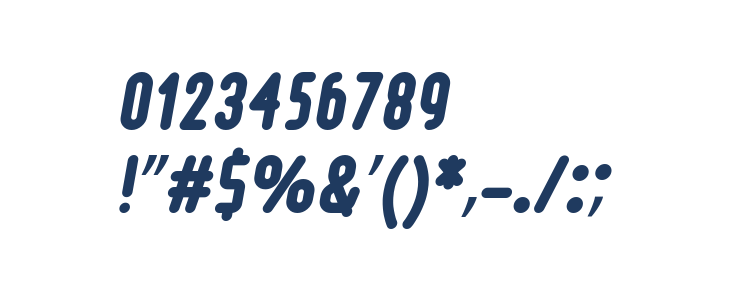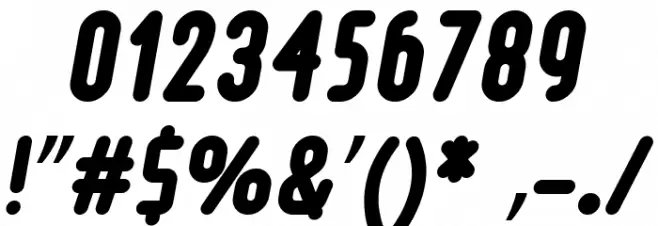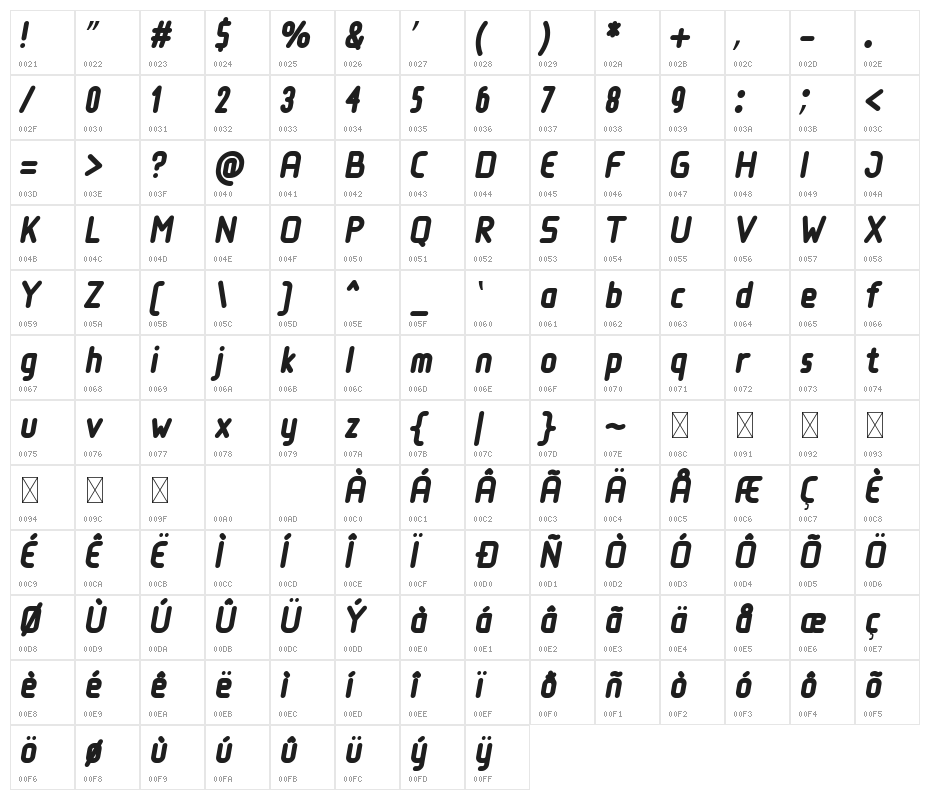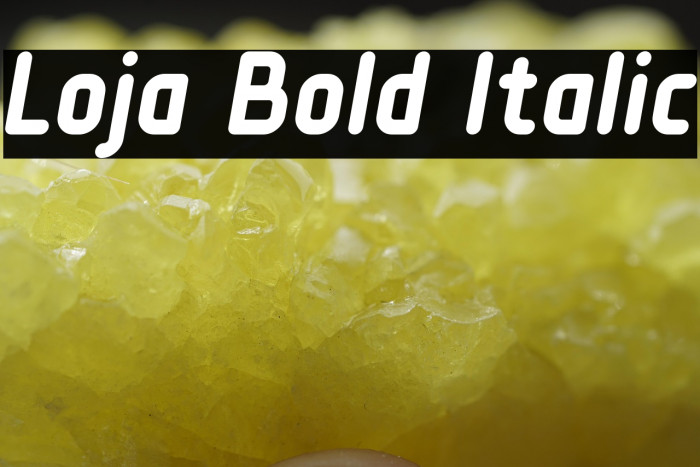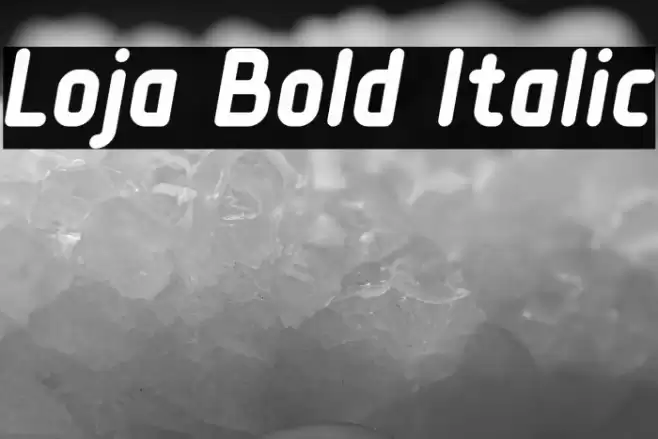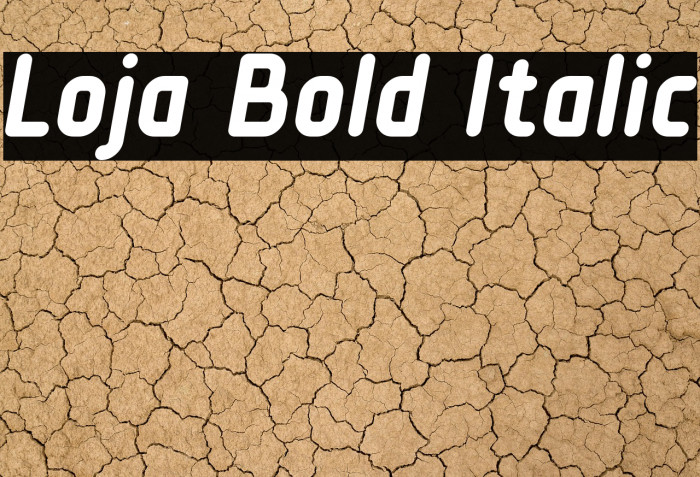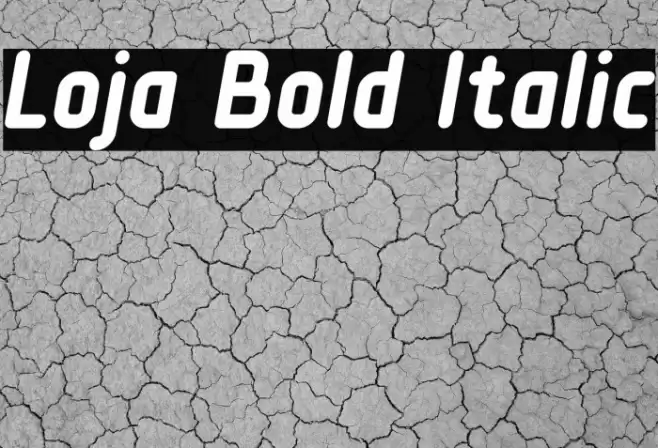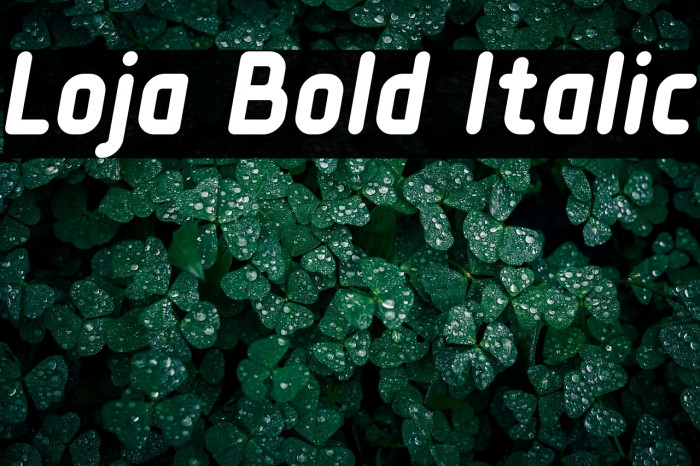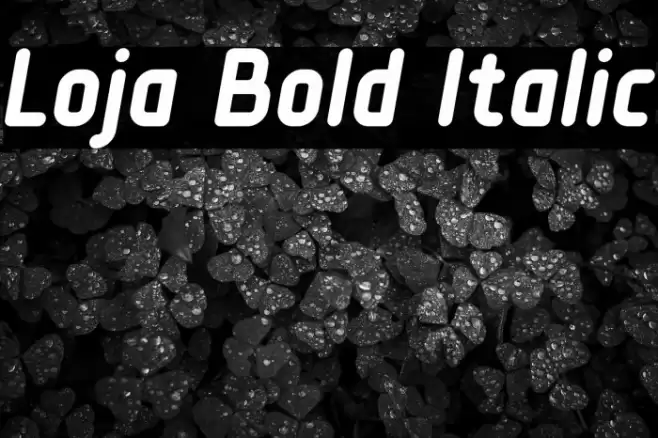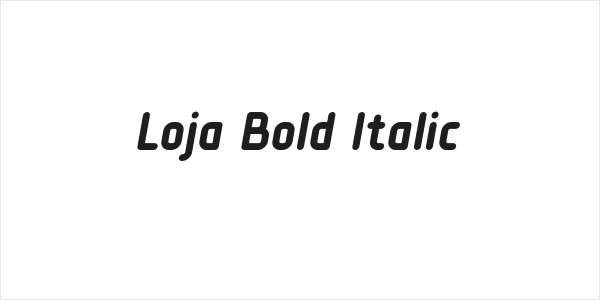
Loja Bold Italic Font
Loja Bold Italic Description
This font features a bold and italicized style, characterized by smooth, rounded edges and a slightly condensed form. The letters are uniformly thick, providing a consistent and robust appearance. The italic slant adds a dynamic and forward-moving feel, making it suitable for attention-grabbing headlines or titles. Its rounded terminals and uniform stroke width give it a modern and friendly look, while maintaining clarity and readability. The numerals and special characters are designed to match the overall style, ensuring cohesion across different types of content.
| Use Case | Headlines, Logos, Branding |
| Proposed Projects | Ideal for branding, advertising, headlines, and digital content that requires a bold and modern touch. |